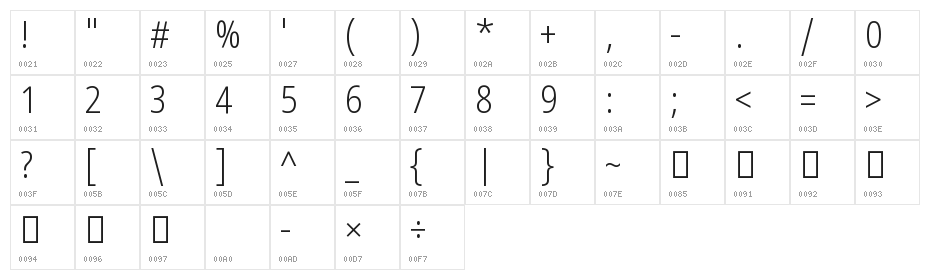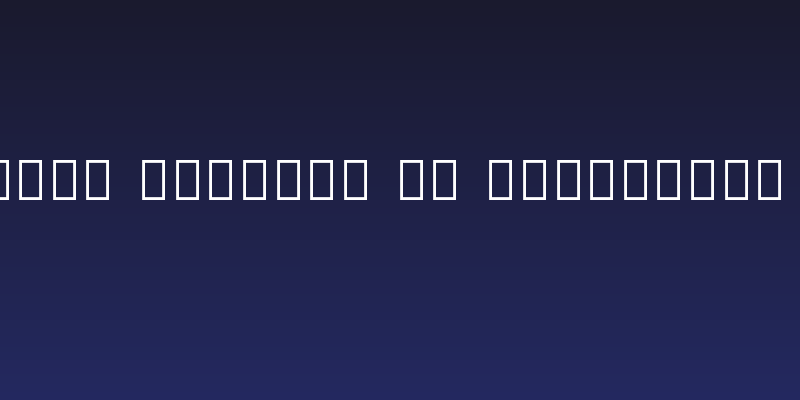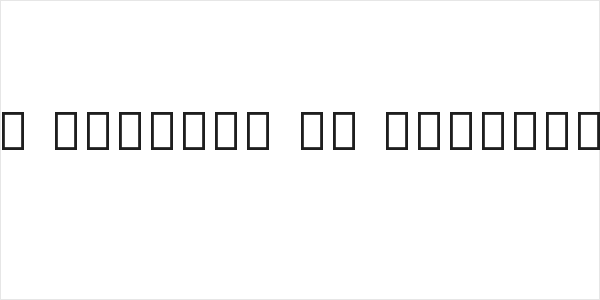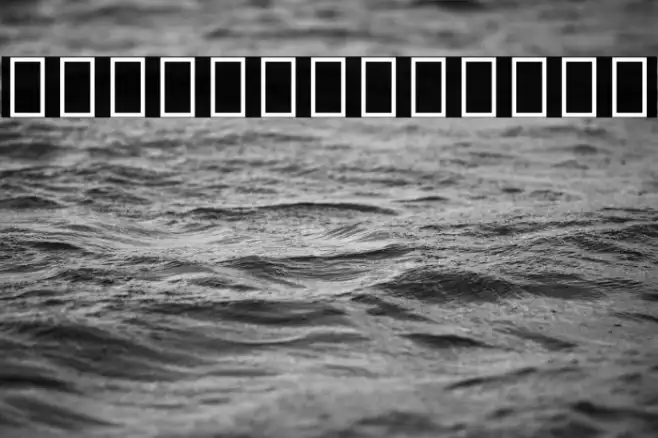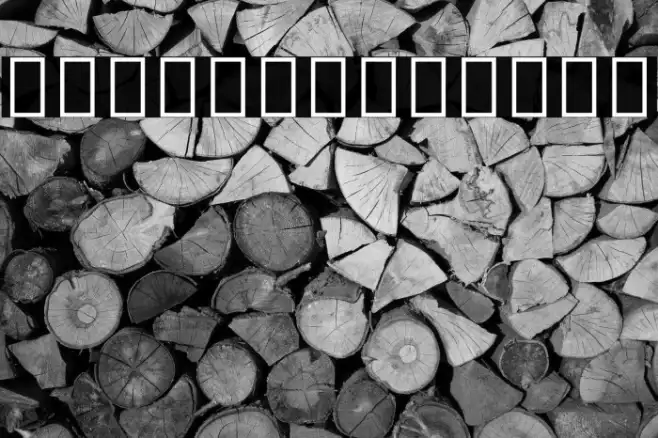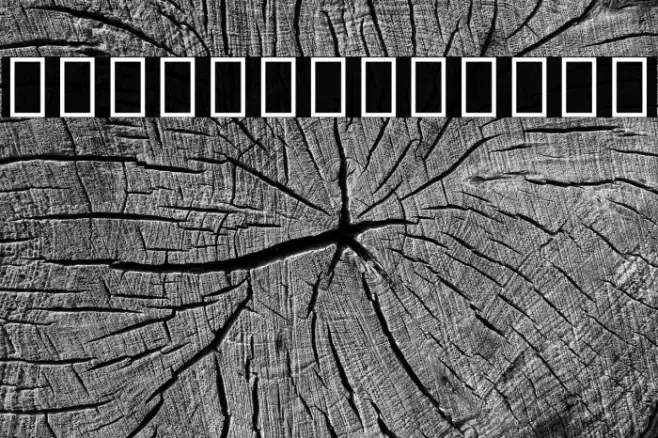
Noto Sans Sinhala UI Condensed Light Font
Noto Sans Sinhala UI Condensed Light Description
This font features a clean and modern design with a focus on readability and simplicity. The characters are evenly spaced and have a uniform stroke width, contributing to a sleek and professional appearance. The numerals are clear and distinct, making them easy to read at various sizes. The special characters are well-defined, maintaining the font's overall aesthetic. This font is particularly suitable for digital interfaces due to its clarity and legibility, even in smaller sizes.